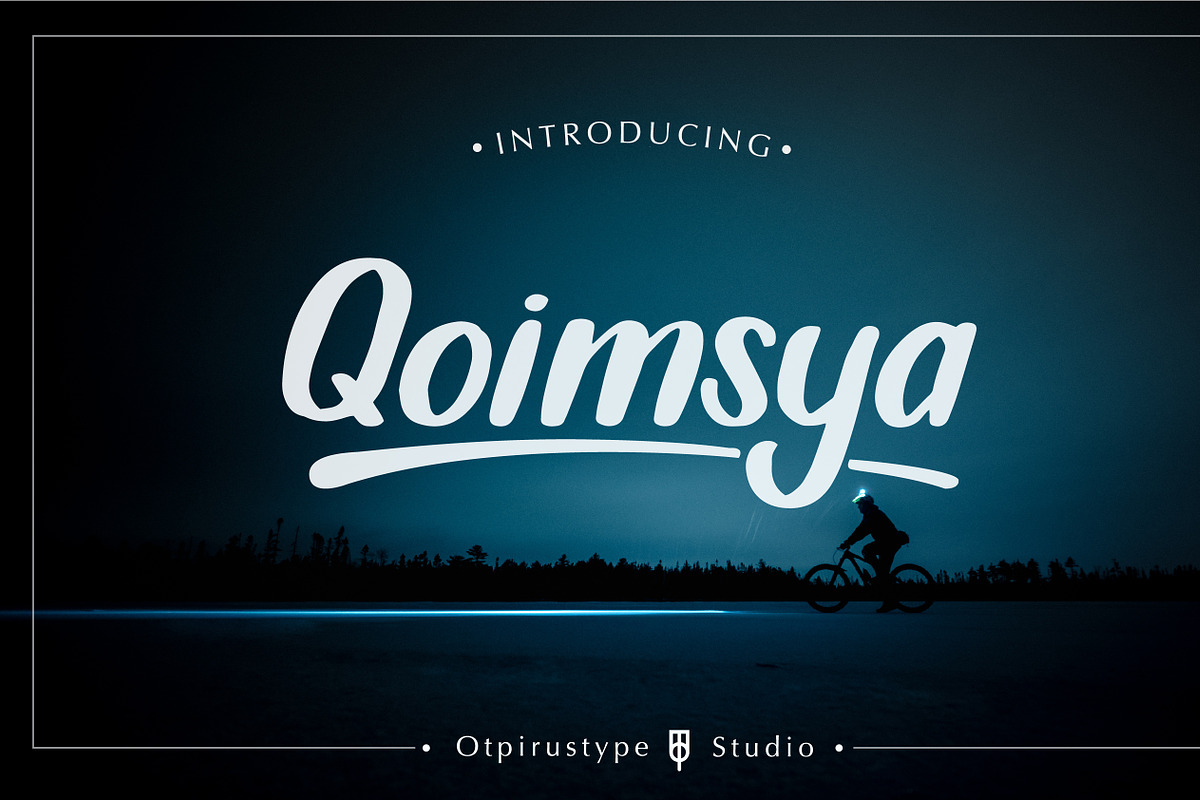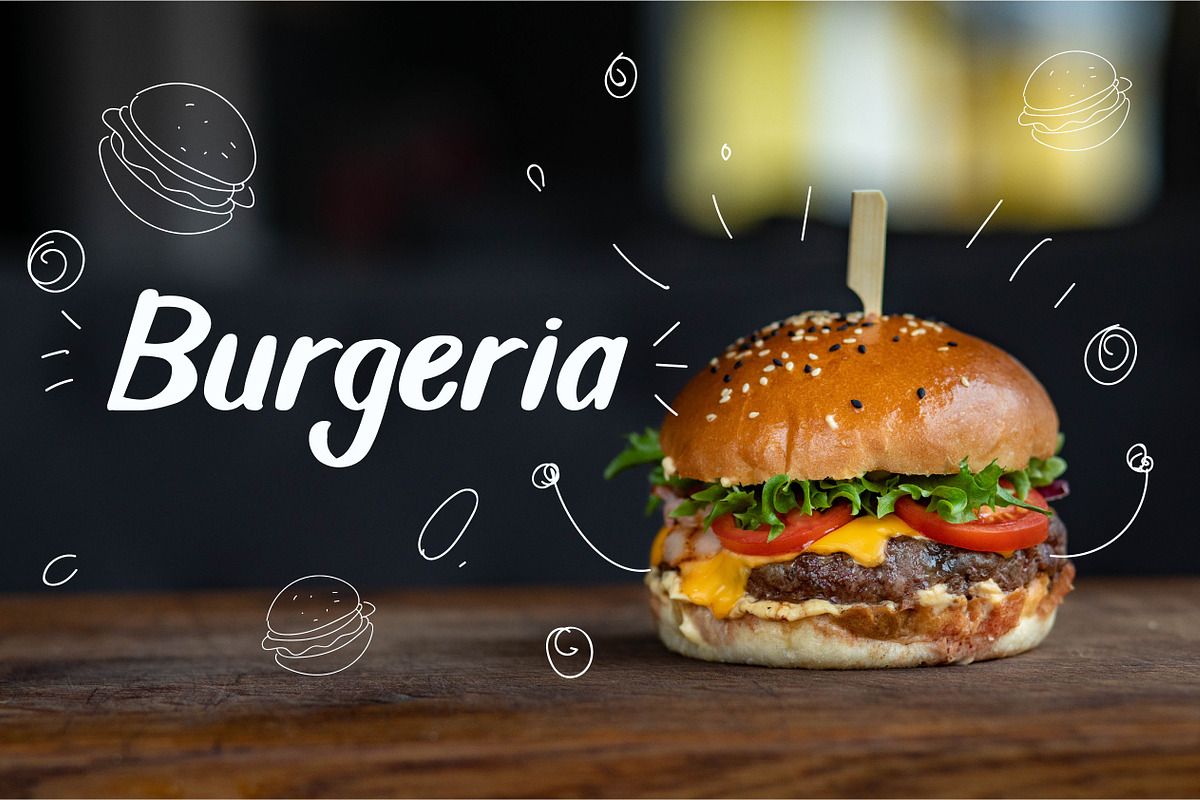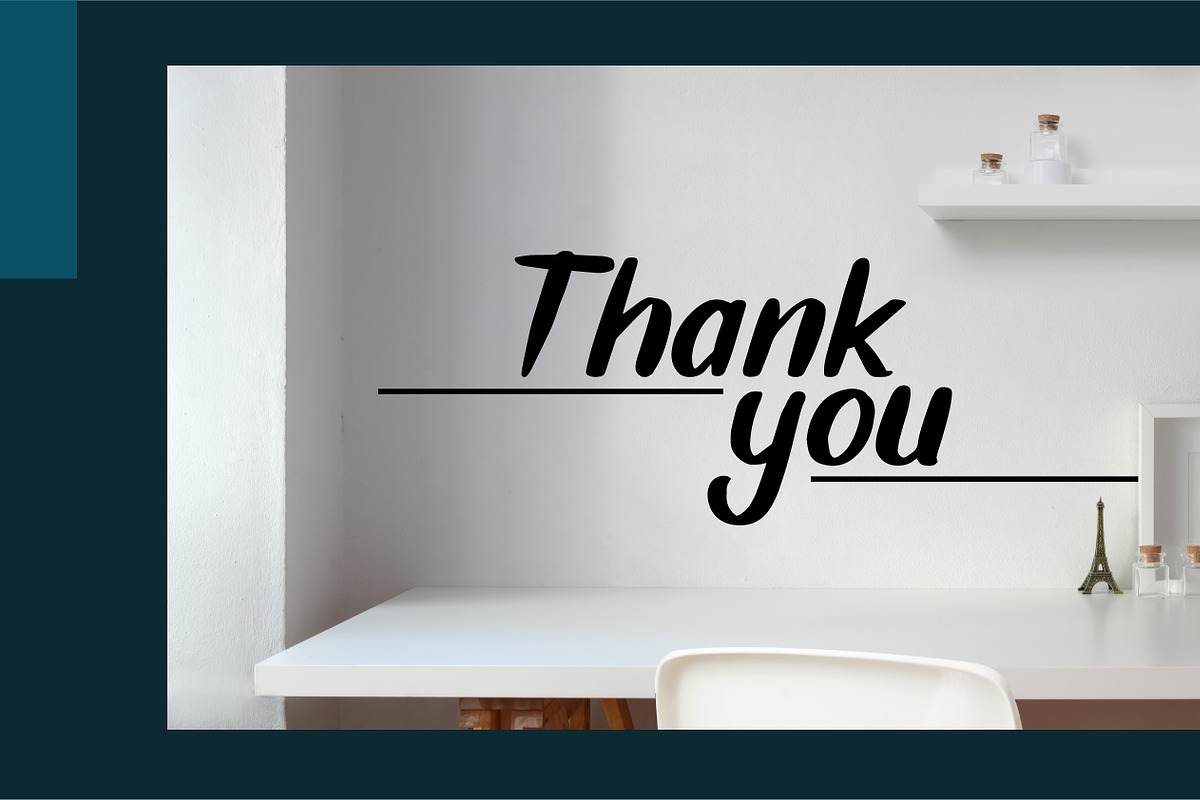
Qoimsya a Playful and Display font
Introducing of our new product the name is Qoimsya, this is a cute and playful display font. It will add an incredibly joyful touch to your designs. Add this beautiful display font to each of your creative ideas and notice how it makes them stand out!